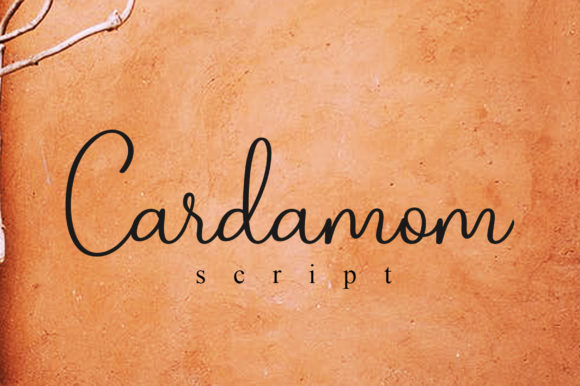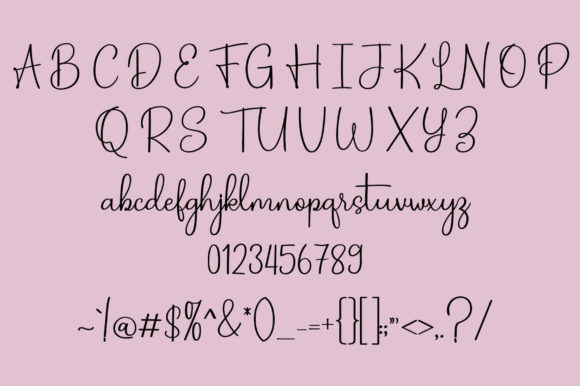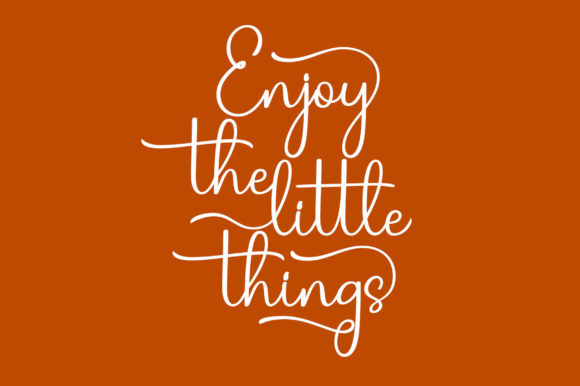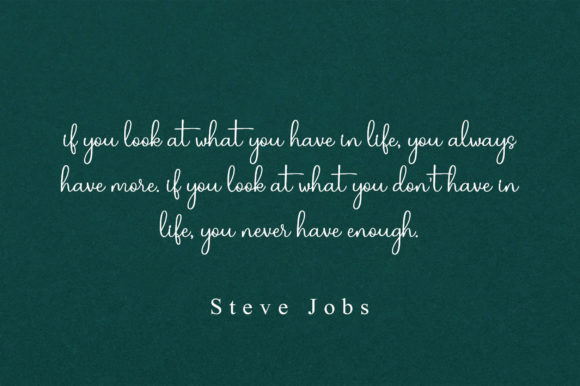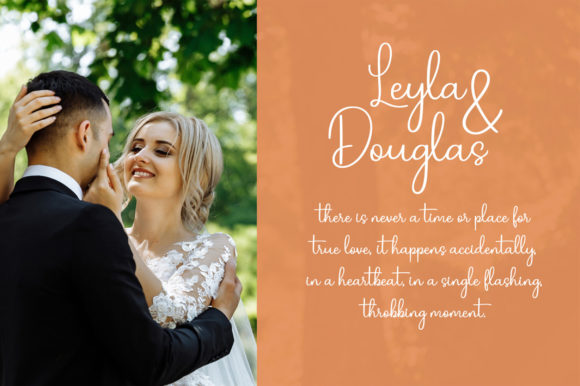
Cardamom Script Font
About Cardamom Script Font
Cardamom Script is a lovely and timeless handwritten font. It is the best choice for creating eye catching logos, branding and quotes. Every letter has a unique and beautiful touch, which will make your design come alive!